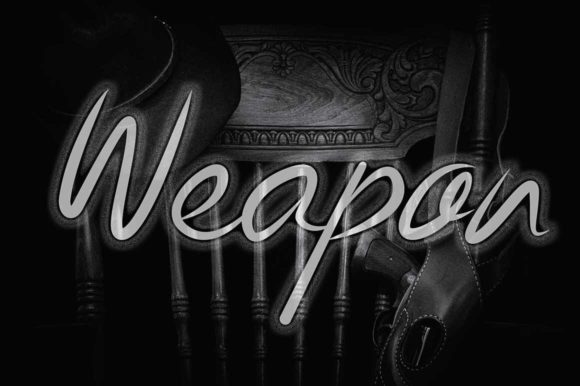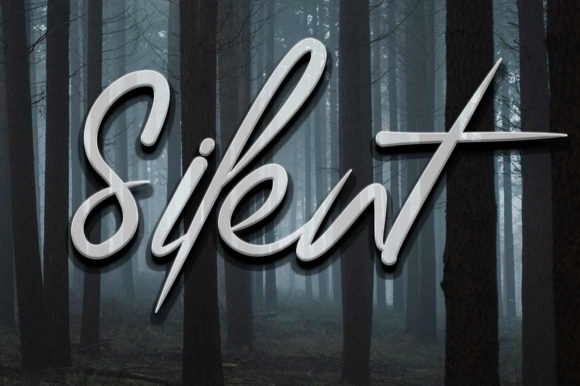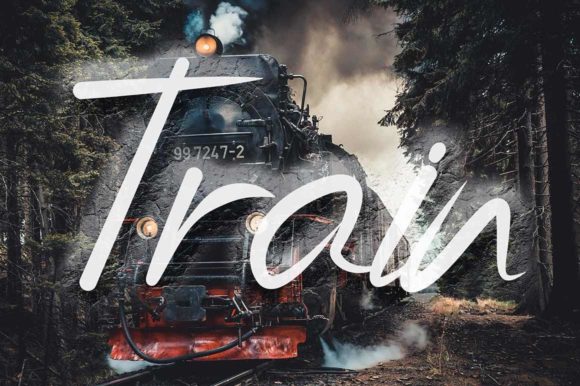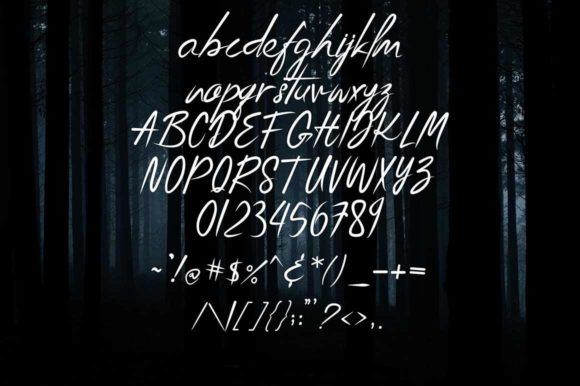
Matilda Font
About Matilda Font
Matilda is a playful and modern script font. It is perfectly suited for traditional media and web. It is also great for crafters and graphic artists alike.